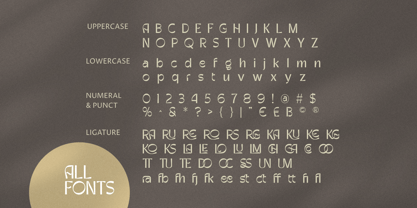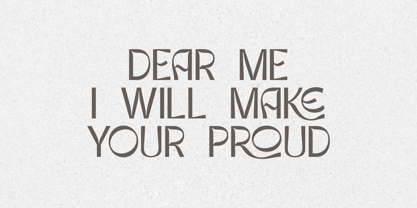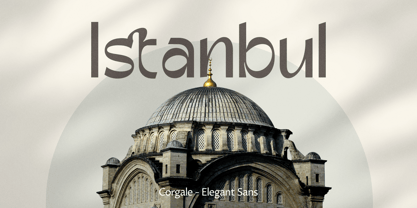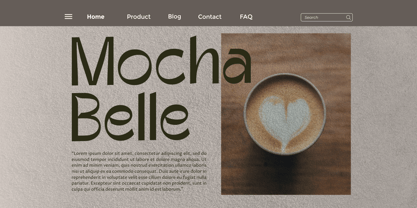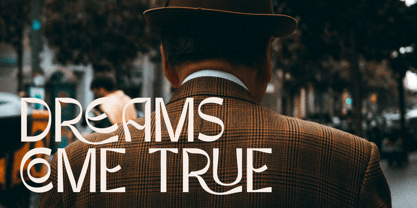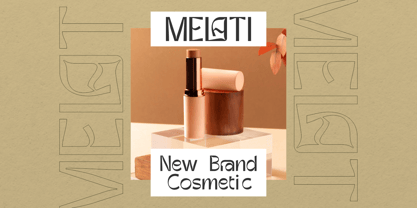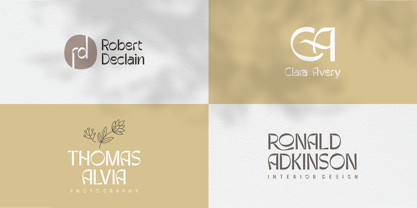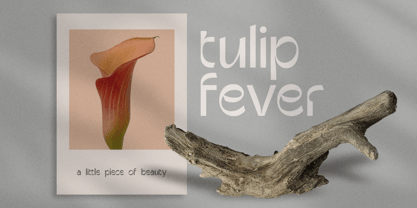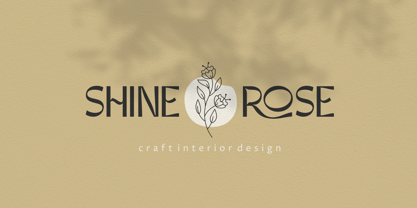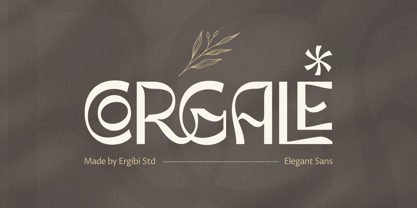
Corgale
von Ergibi Studio
Die Schriftfamilie Corgale wurde von Riyadh Rahman entworfen und von Ergibi Studio veröffentlicht. Corgale enthält 1 Stile. Mehr über diese Familie
Introducing Corgale — a quirky and fun sans, perfect for branding, headlines, posters, books, magazines, and packaging projects! Mainly characterized by a modern look with a straight and clean shape, it blends beautifully with both contemporary and vintage styles. This font features playful ligatures that bring a unique personality to each character. Additionally, Corgale is a unicase typeface, allowing you to creatively mix uppercase and lowercase letters for distinctive typography compositions. if you have any questions, don’t hesitate to contact us Ergibi Studio